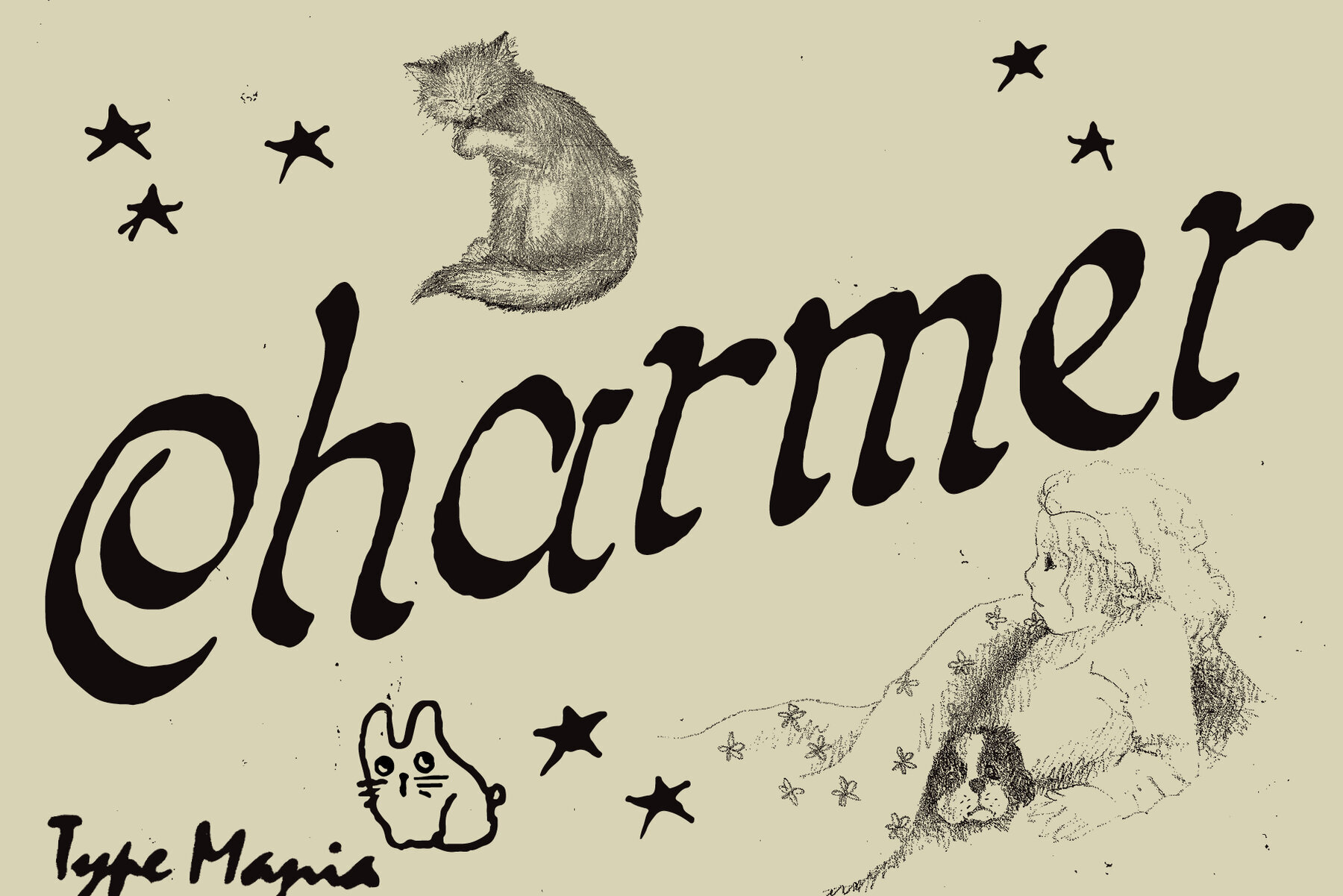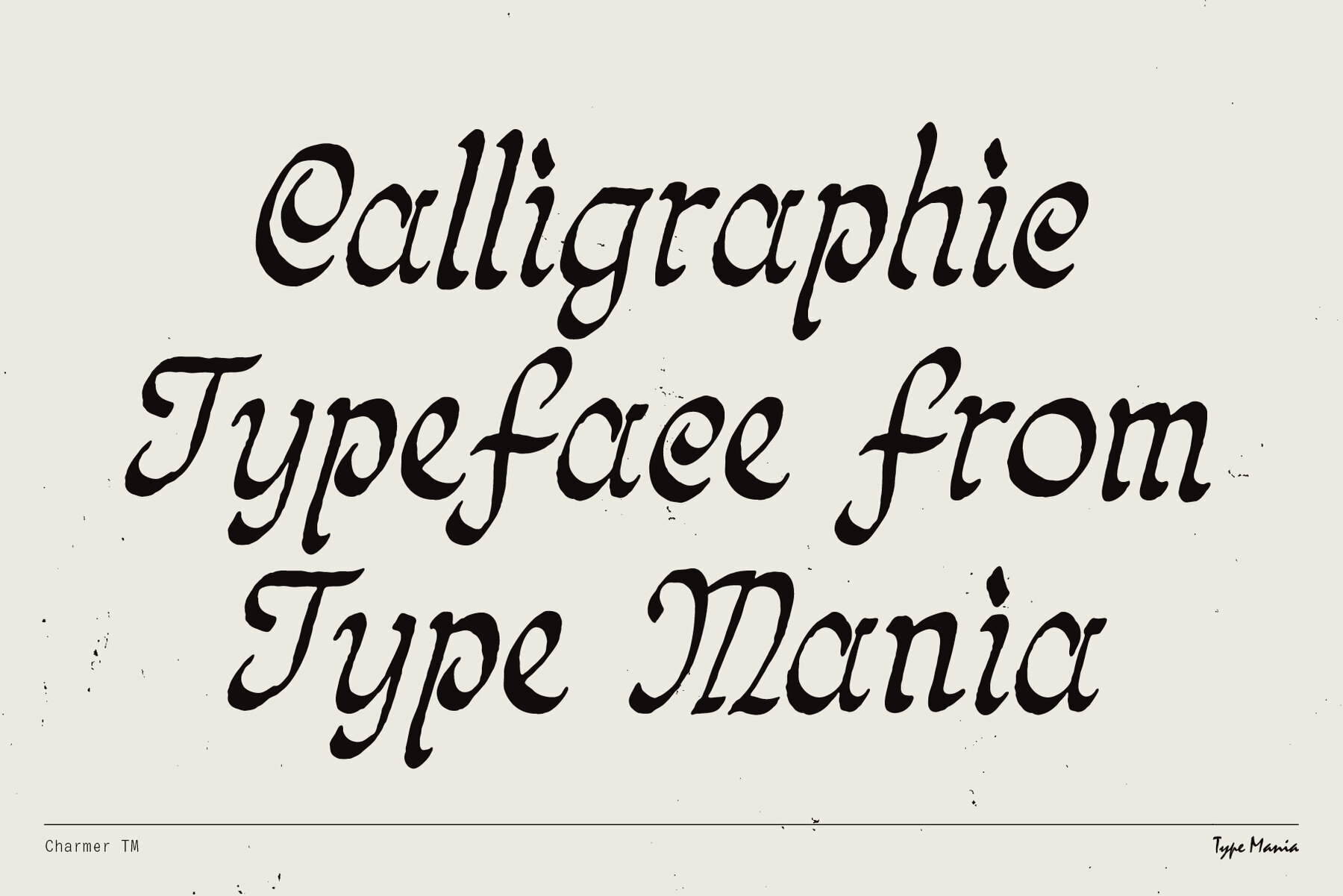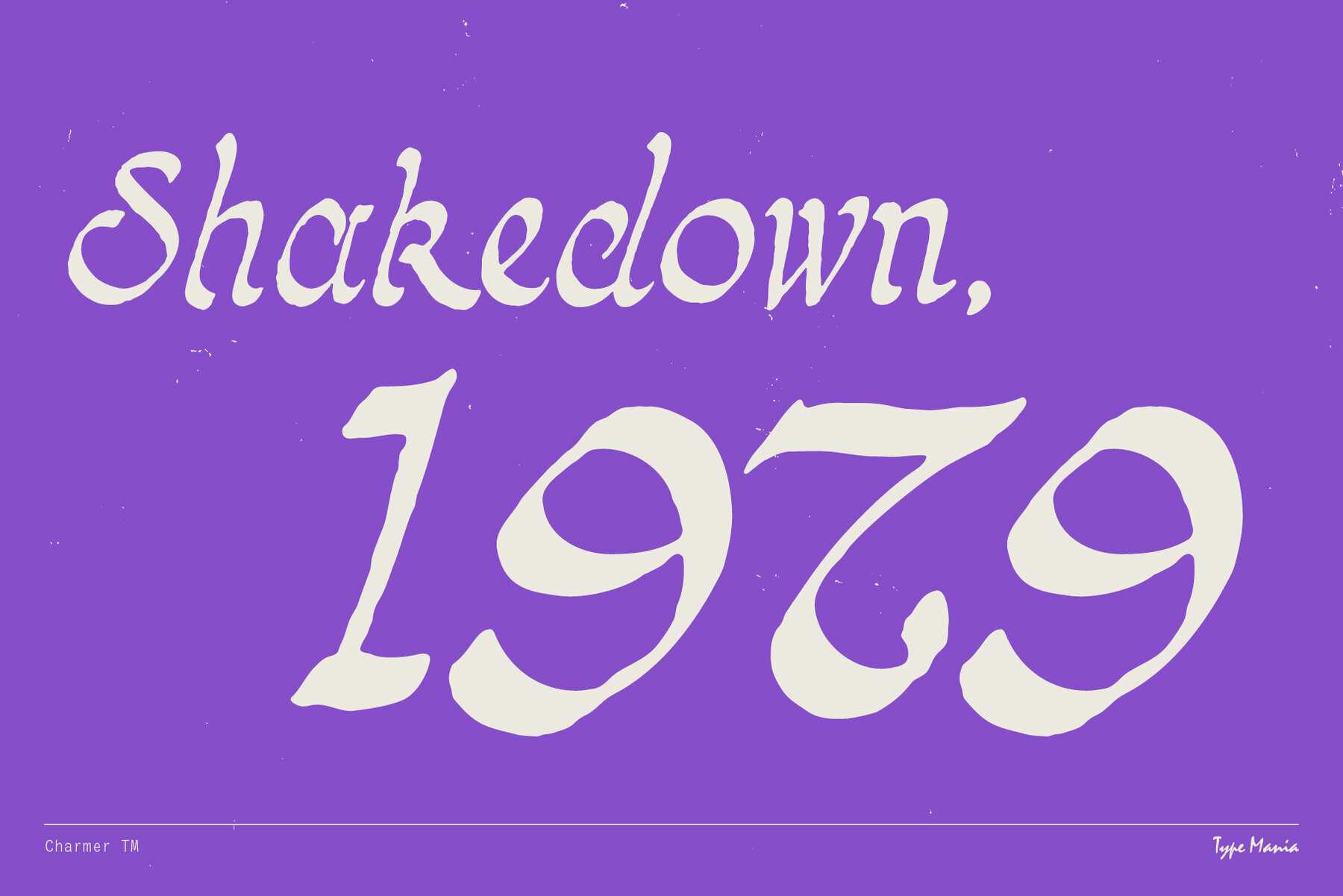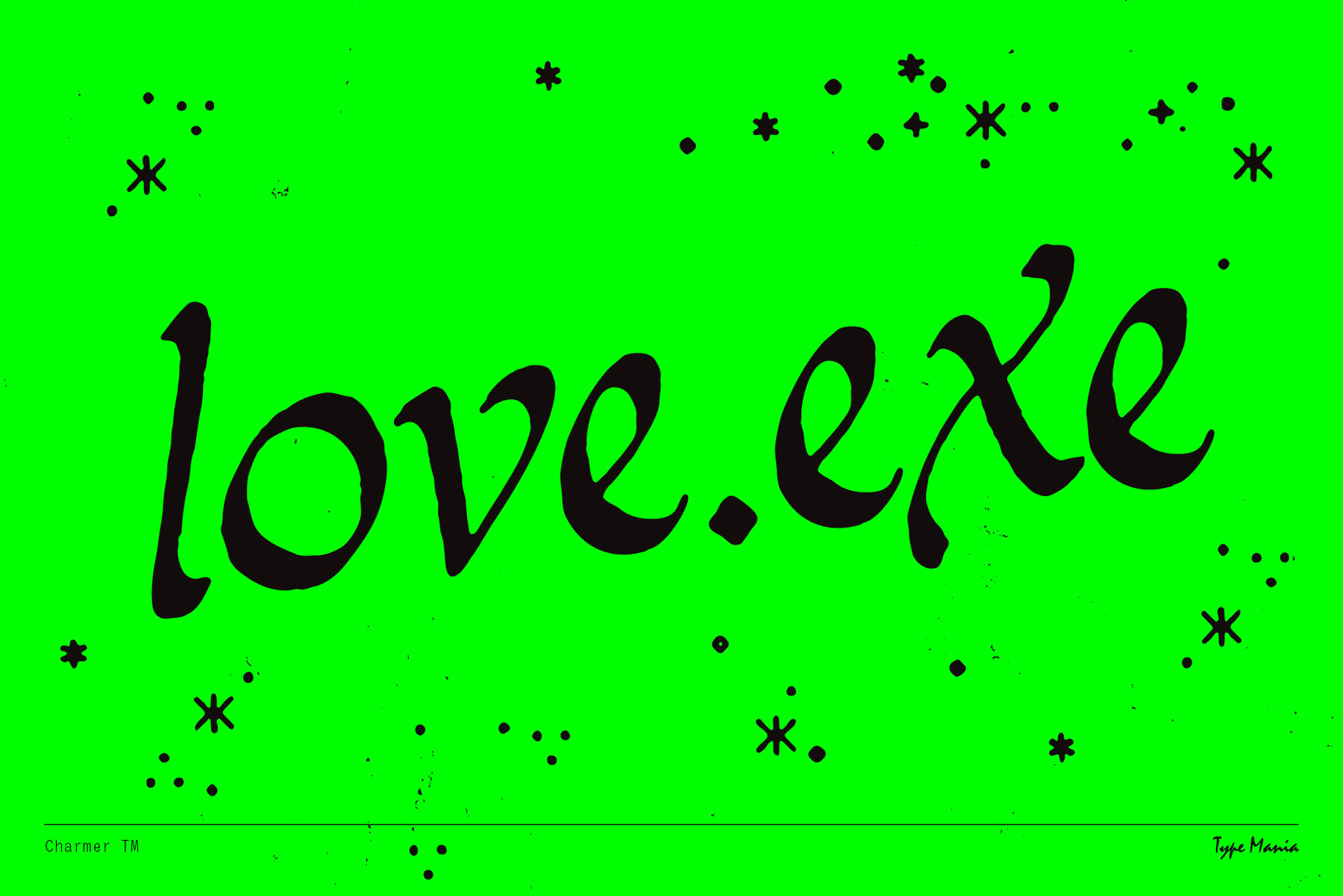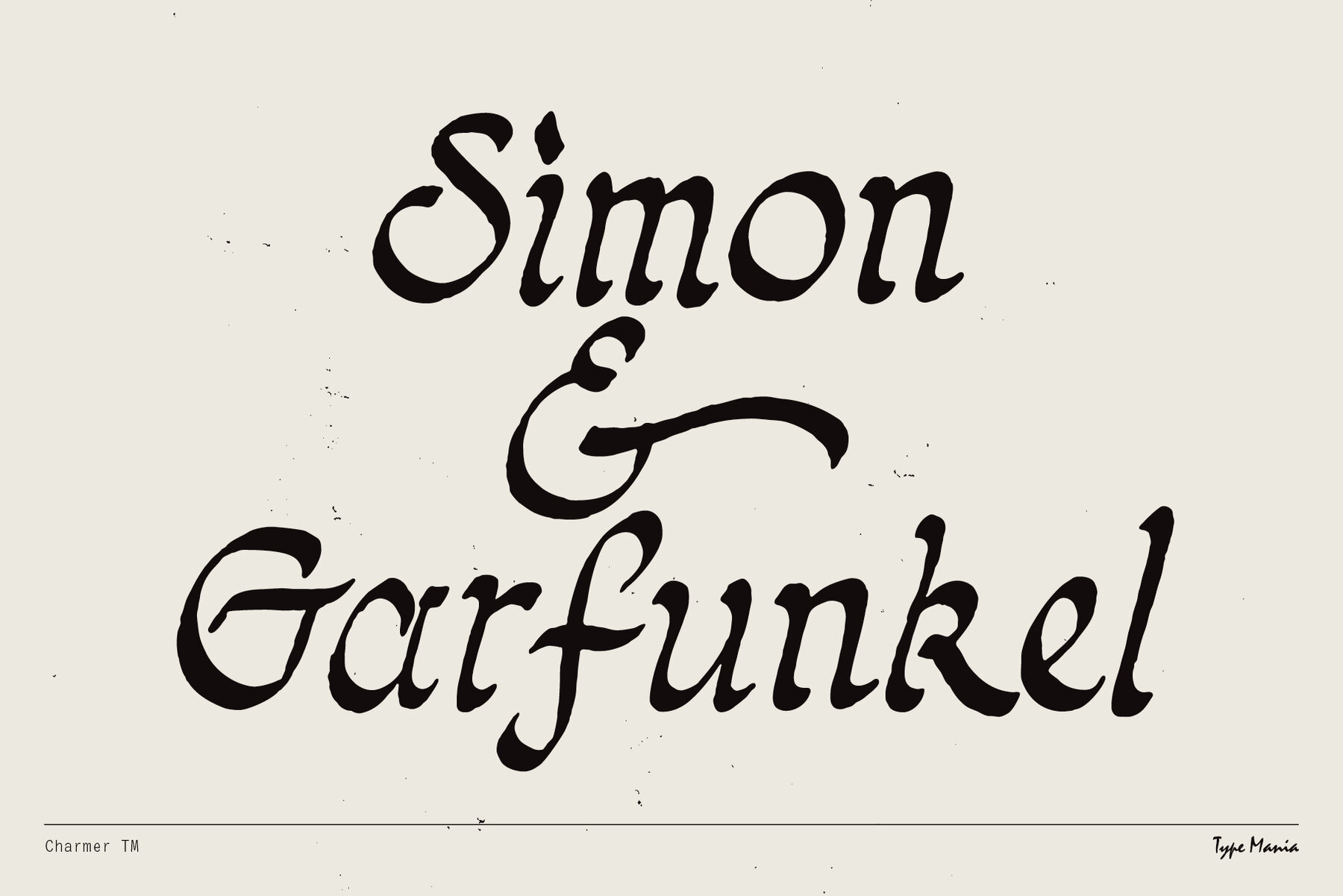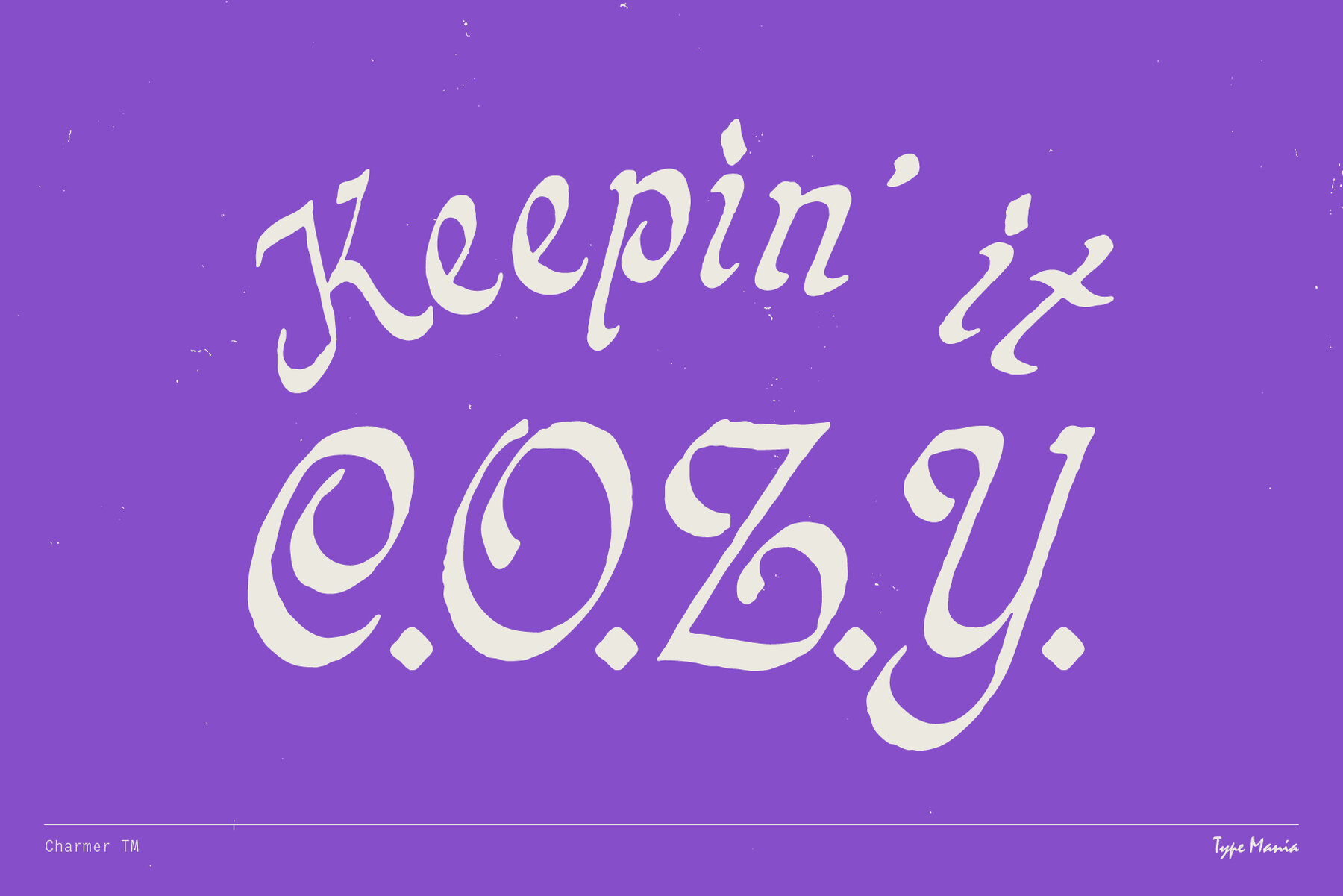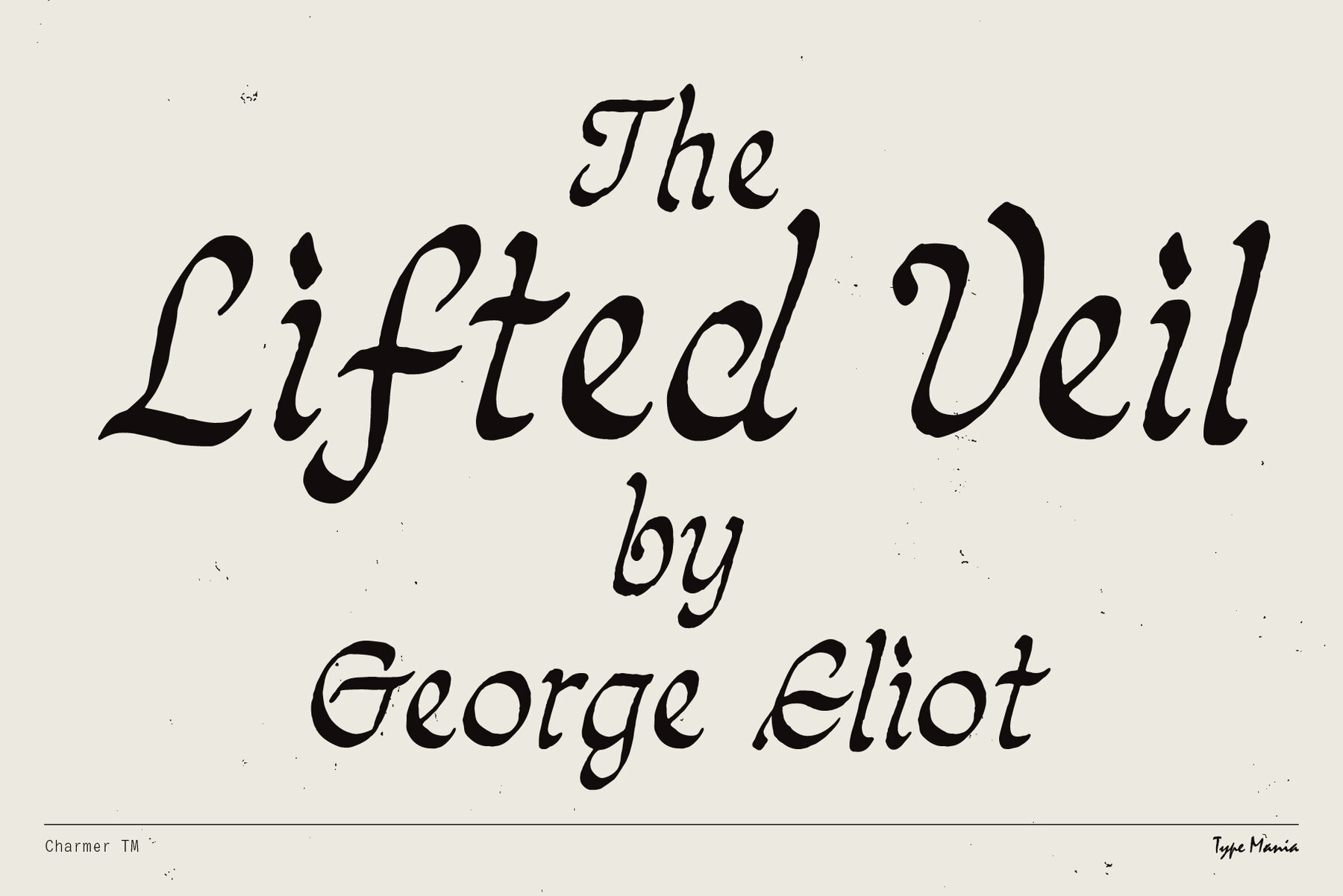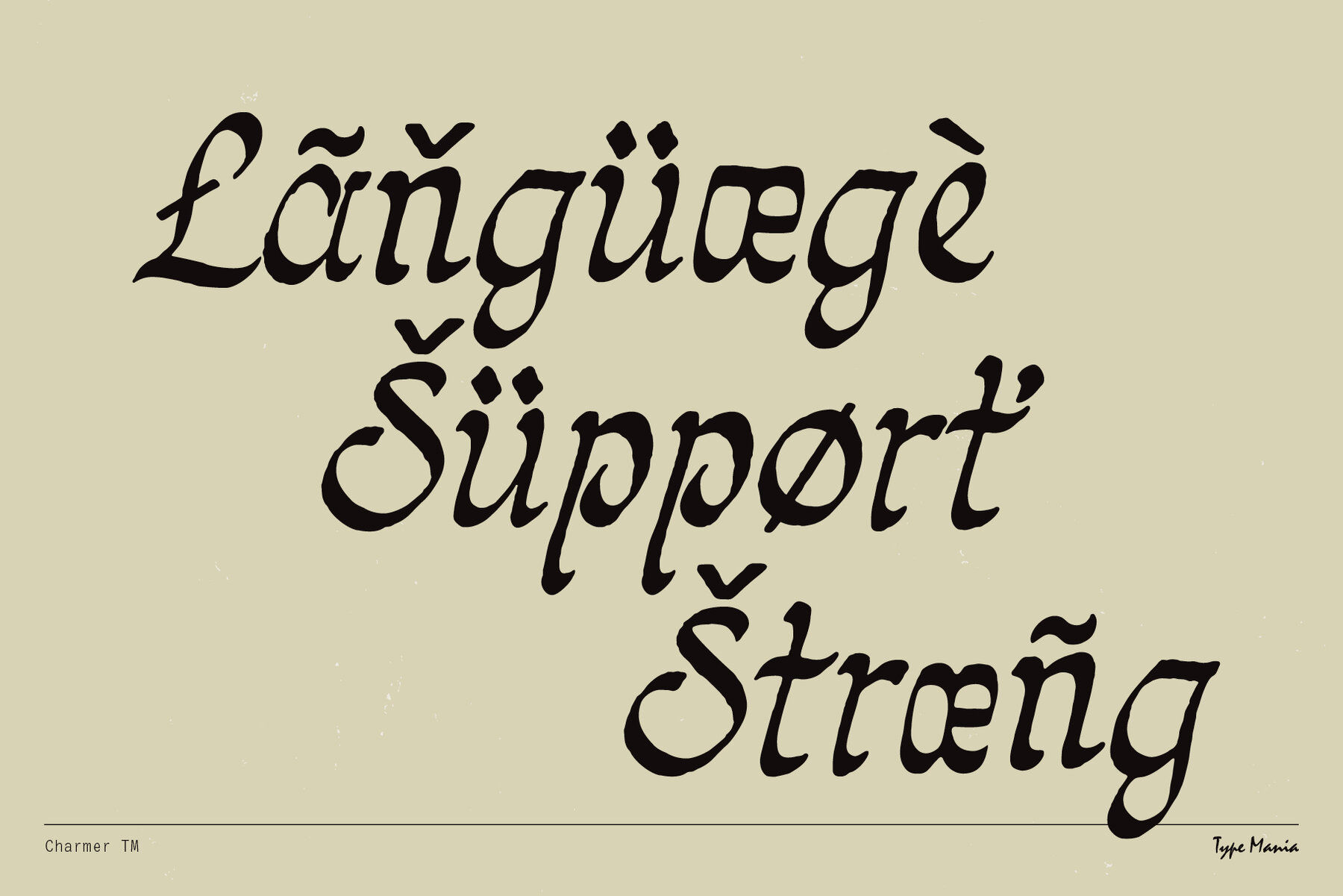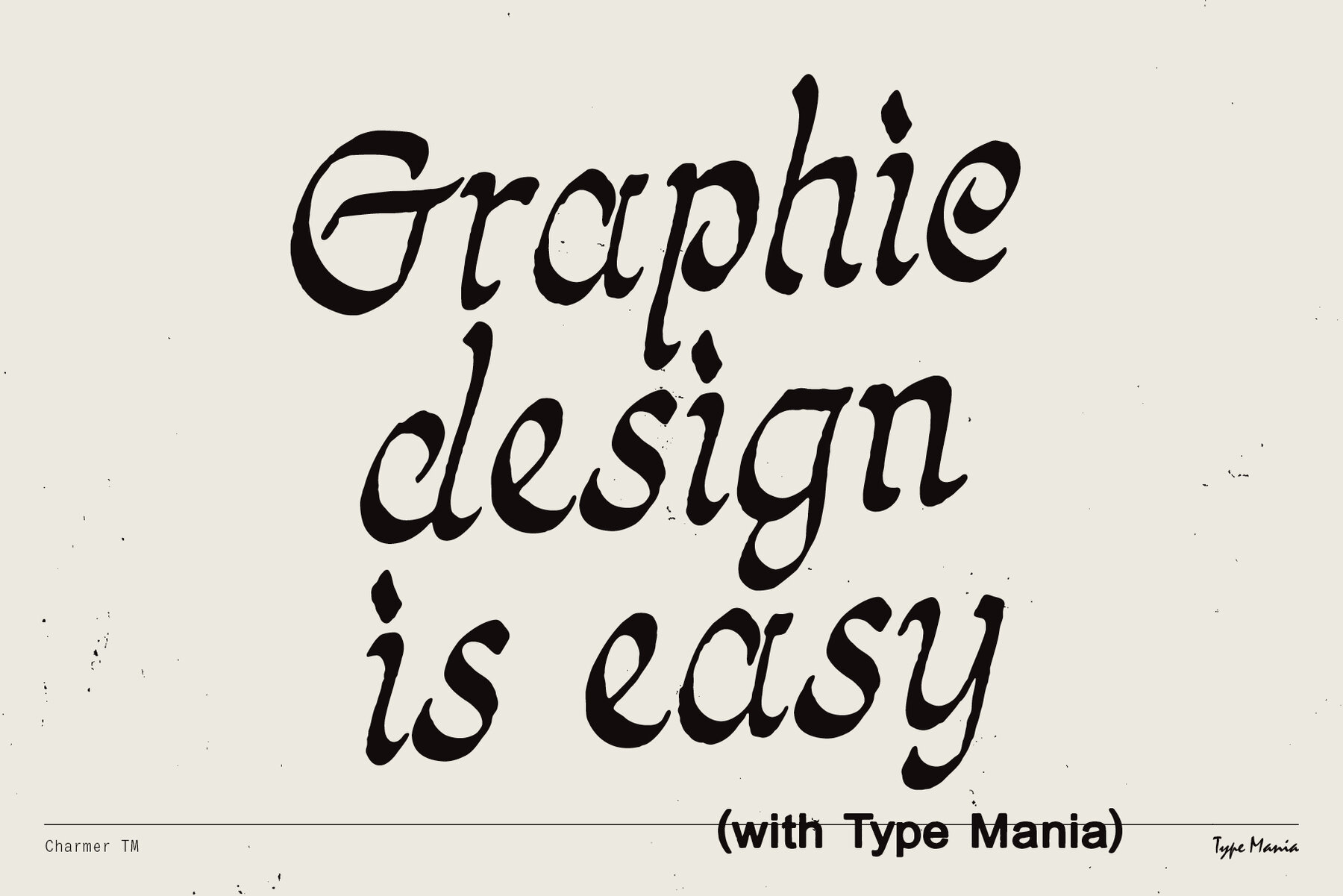
Charmer TM: A Handcrafted Calligraphic Font
Charmer TM offers a warm, personal touch with its calligraphic style. Ideal for musicians, designers, or anyone wanting to add a unique flavor to their creative projects.